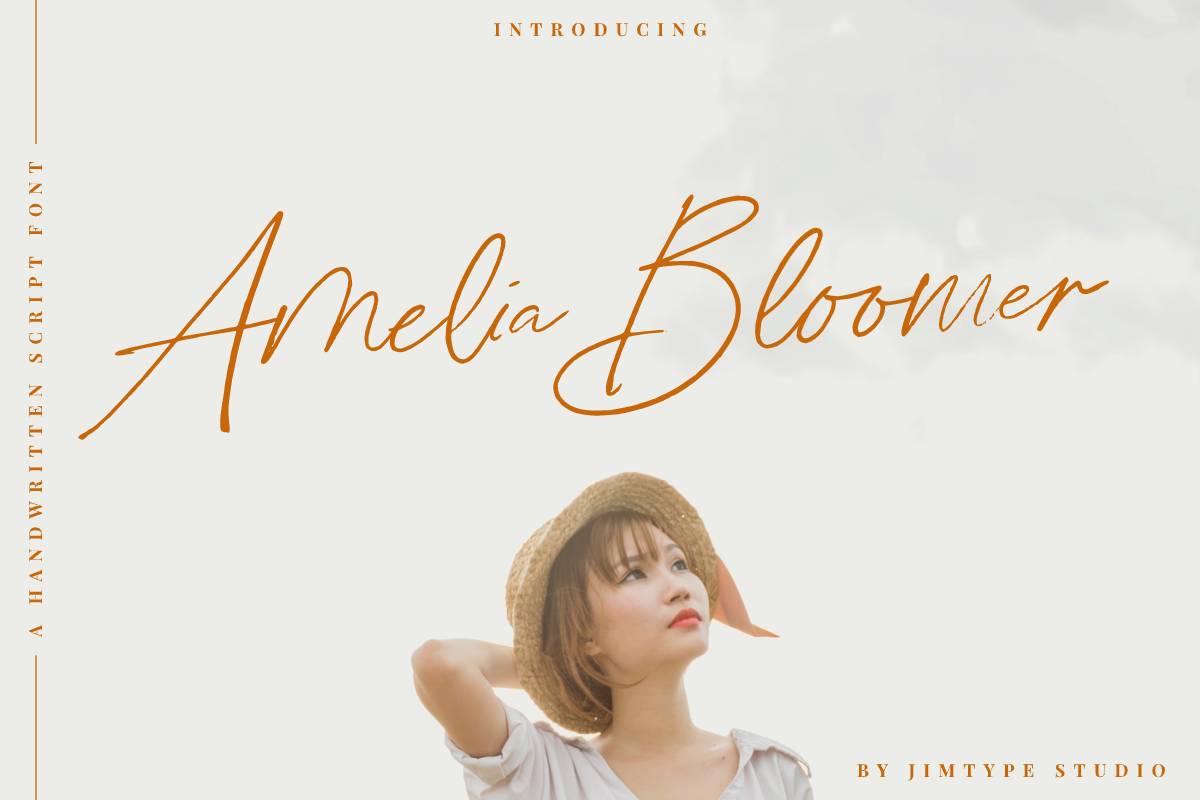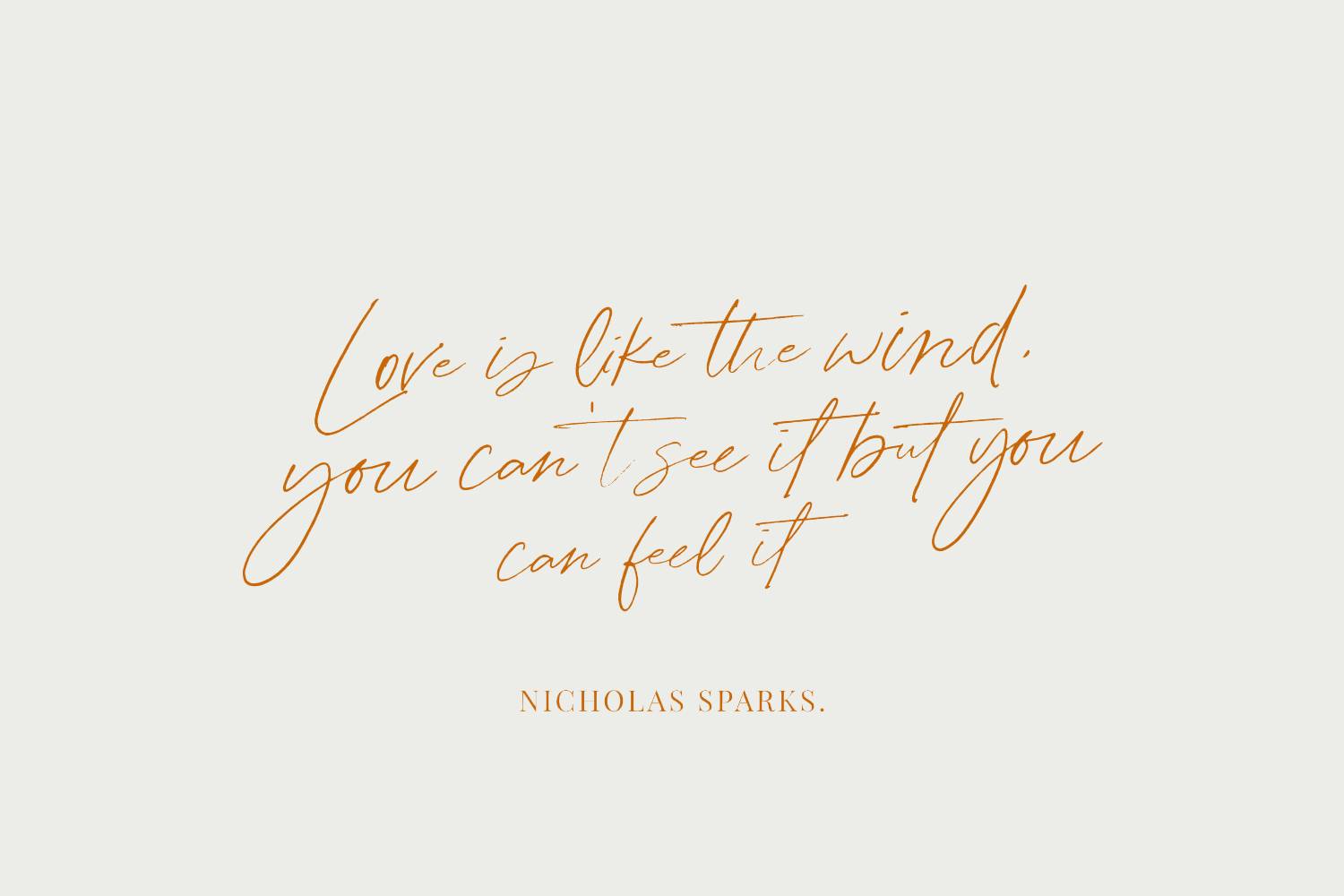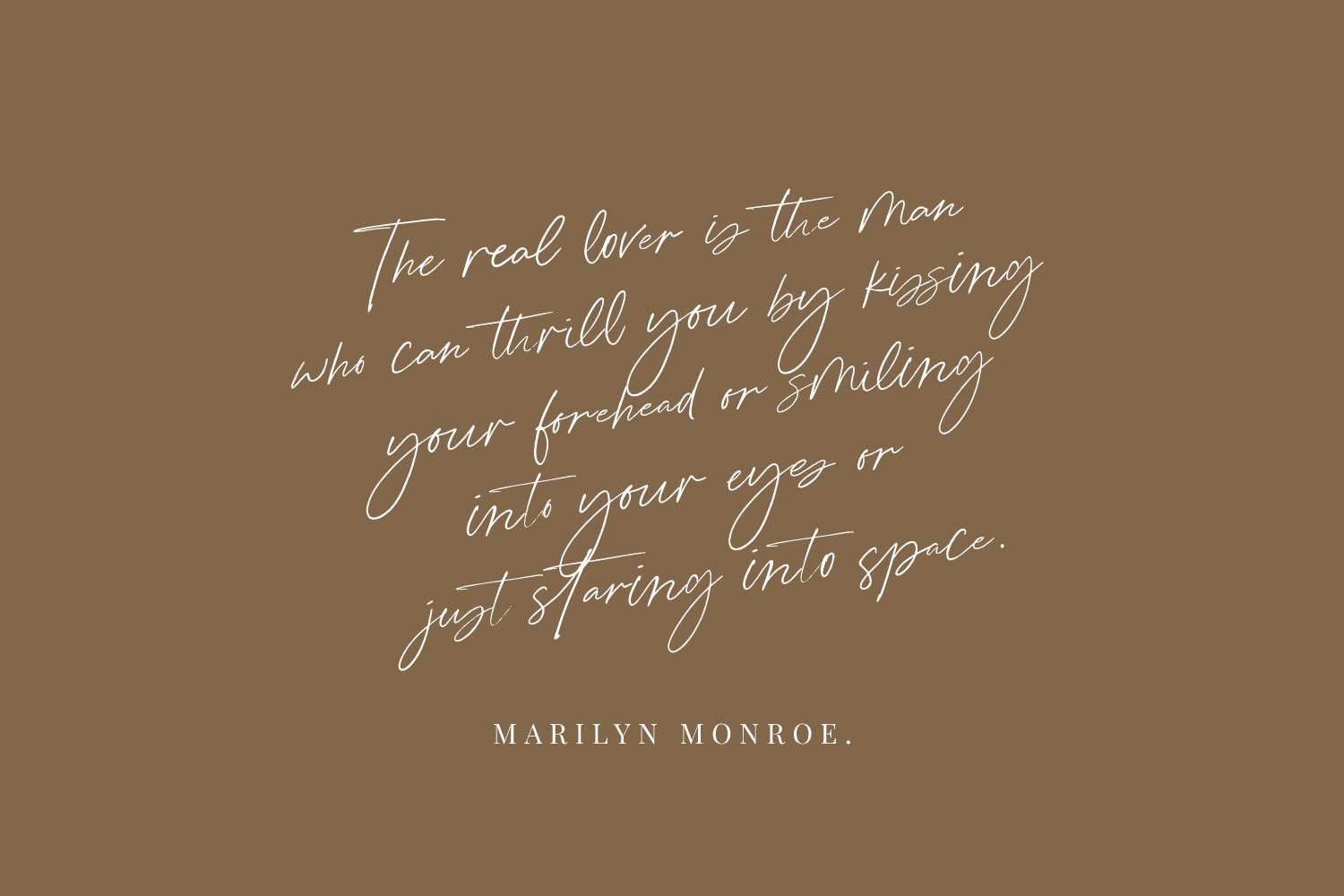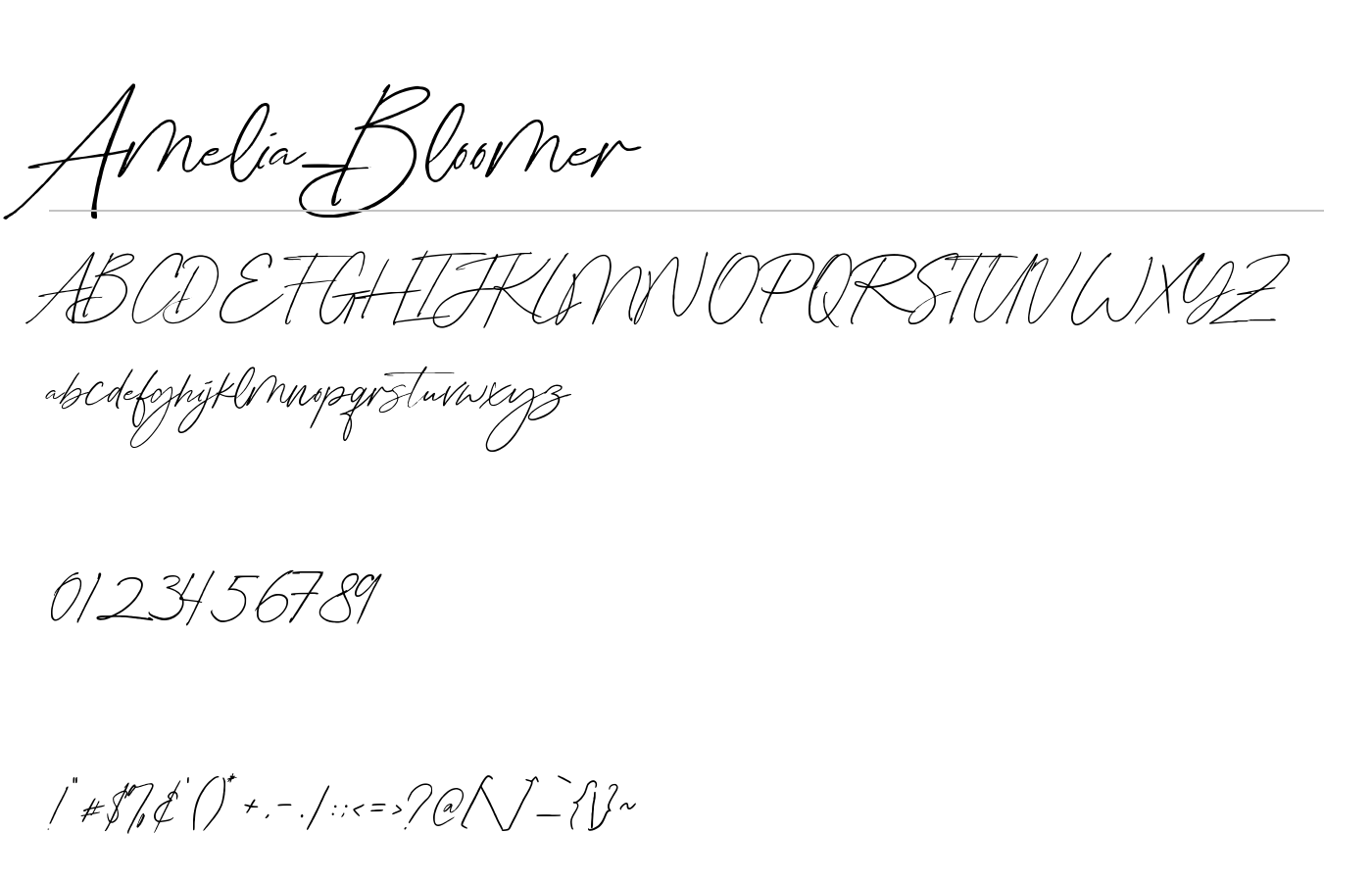
Amelia Bloomer is a delicate, elegant script font featuring thin, flowing strokes that mimic natural handwriting with a refined, feminine touch. Its light weight and airy spacing create a graceful, sophisticated feel, making it ideal for wedding invitations, fashion branding, and stylish editorial projects where a personal and artistic vibe is desired.
Amelia Bloomer Font
About Amelia Bloomer Font